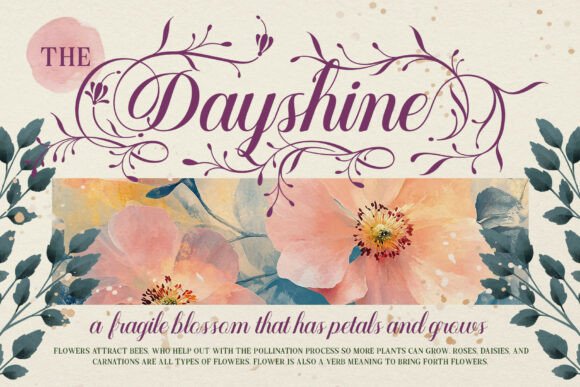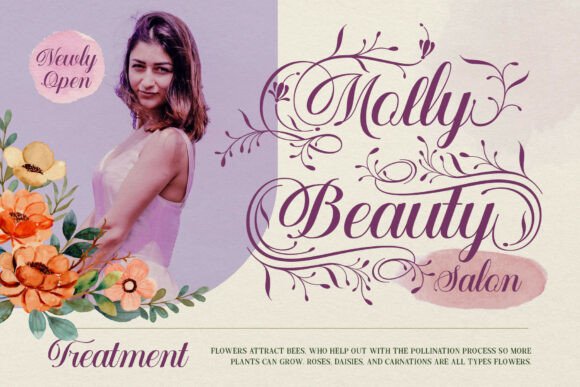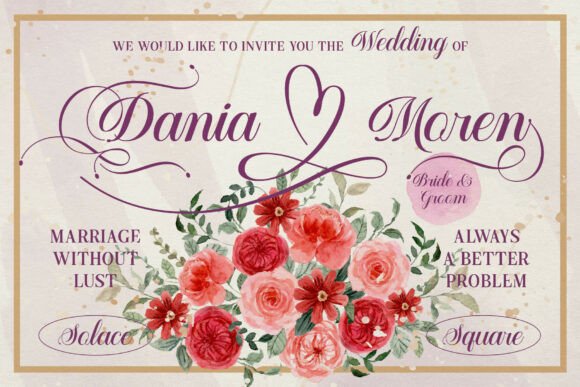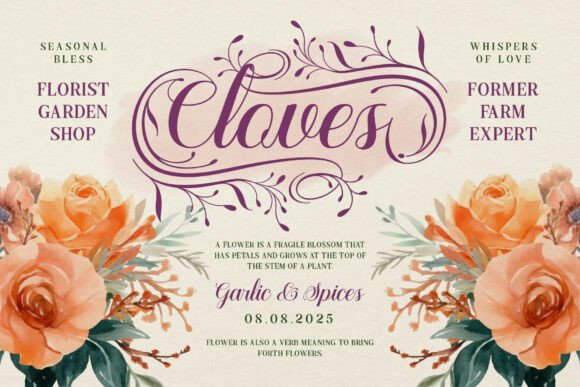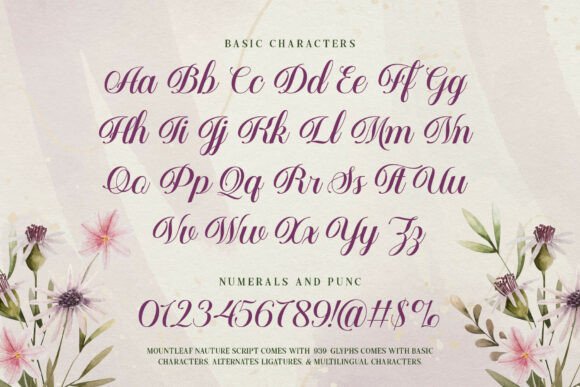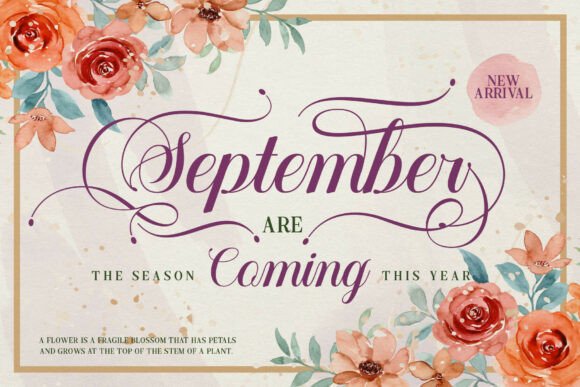
Introduction to Mountleaf Font
Proudly presented, Mountleaf is a stunning and gracefully handcrafted script font that captures the delicate essence of nature.
Each letter flows with organic beauty, adorned with intricate swashes that intertwine like vines, blooming into charming flowers and leaves This typeface is designed to bring a touch of romance, sophistication, and natural wonder to your creative projects.